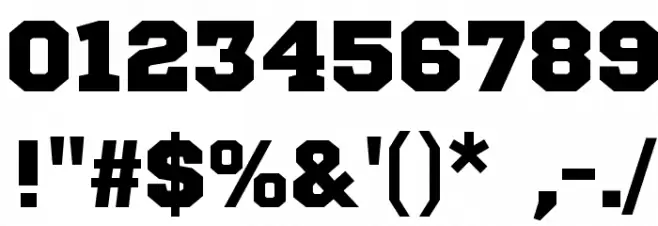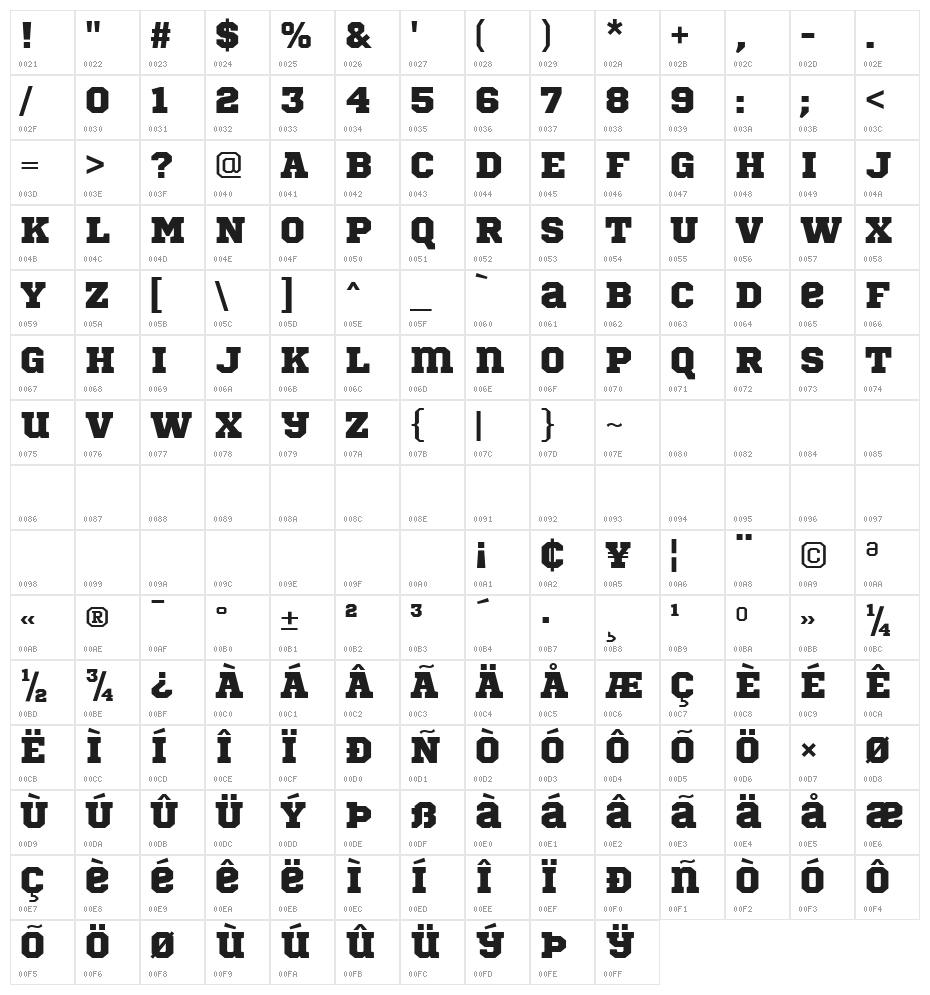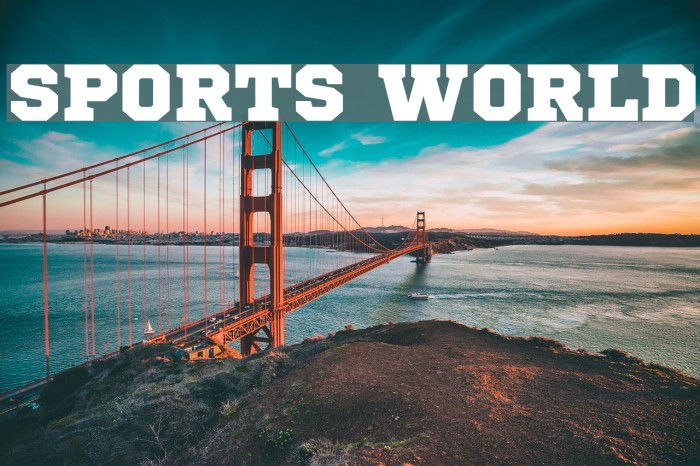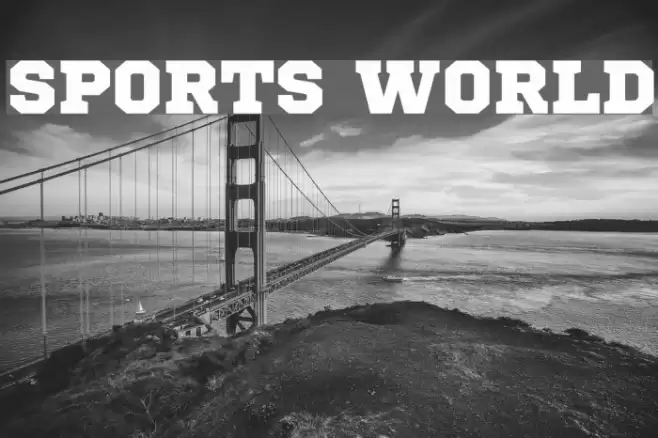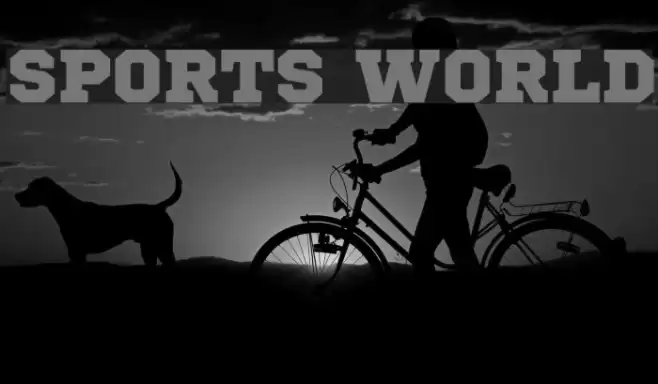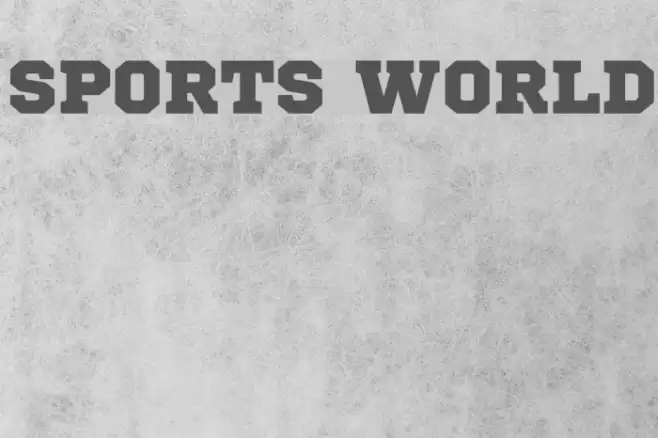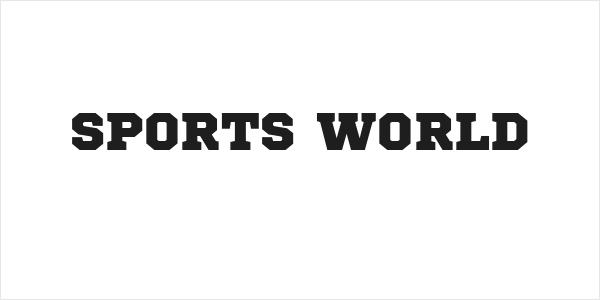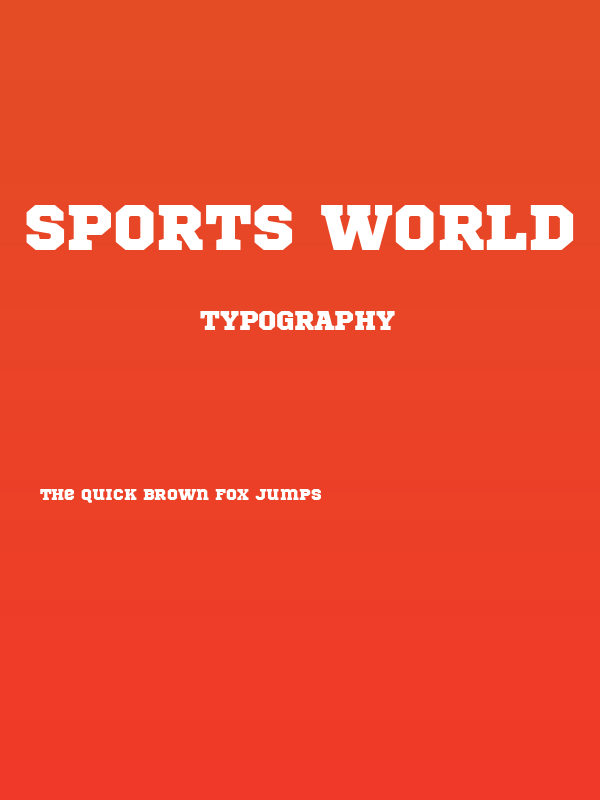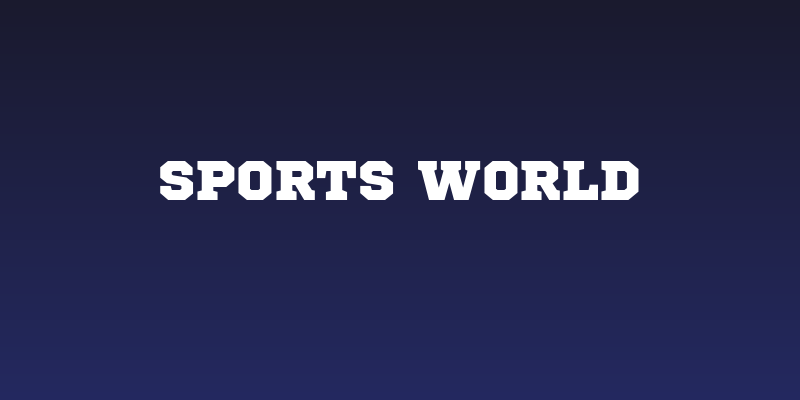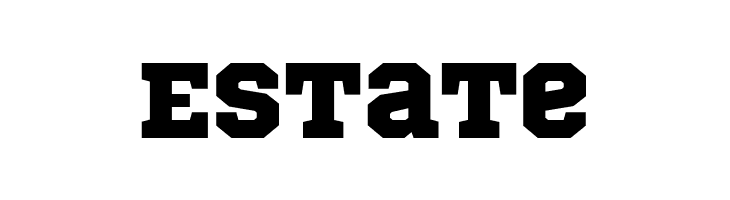
Sports World Font
Sports World Description
This font features a bold and robust design with strong, angular lines and a solid presence. The characters are blocky and geometric, reminiscent of sports jerseys and athletic branding. Each letter is crafted with a uniform thickness, giving it a powerful and commanding look. The uppercase and lowercase letters maintain a consistent style, while the numerals and special characters complement the overall aesthetic. This font is ideal for creating impactful headlines and designs that require a sense of strength and dynamism.
| Proposed Projects | Perfect for sports team logos, athletic apparel, event posters, and dynamic headlines. |